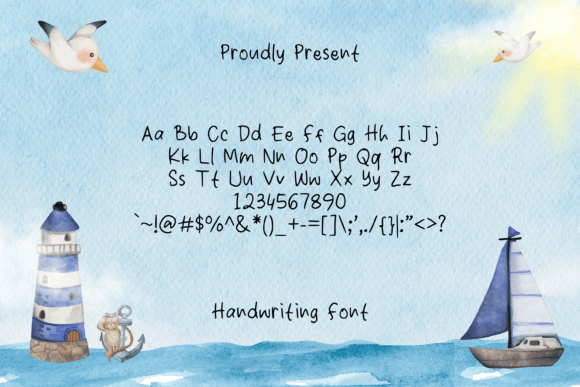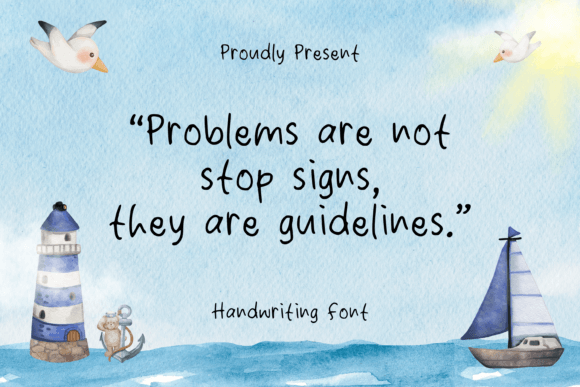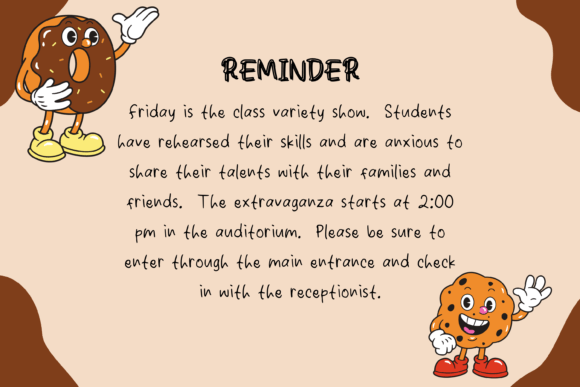
Introduction to Sagera Font Font
Fonts play a crucial role in design, and the Sagera Font font is a typeface that brings both character and versatility to any project. Whether you’re working on a branding project, a website, or a print design, the Sagera Font font offers a unique style that can elevate your work.
Sagera font is a simple regular handwriting font that is perfect for social media or crafty projects.
Use if for branding, crafts for decor, invitations, and more .
Key Features of Sagera Font Font
Why Choose Sagera Font Font?
The Sagera Font font is more than just a typeface – it’s a design tool that helps you communicate your message with style and clarity. Its unique character set and versatile design make it suitable for a wide range of applications, from elegant invitations to bold headlines.
With its carefully crafted letterforms and balanced proportions, the Sagera Font font ensures readability and visual appeal across all mediums.
What makes Sagera Font font special?
The Sagera Font font stands out with its unique design, exceptional readability, and versatility across various design applications.